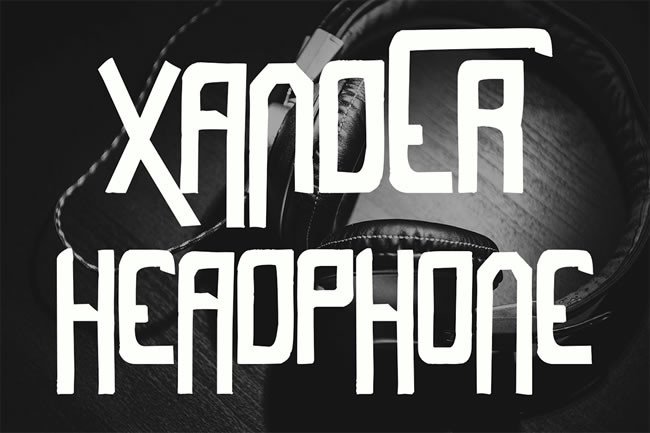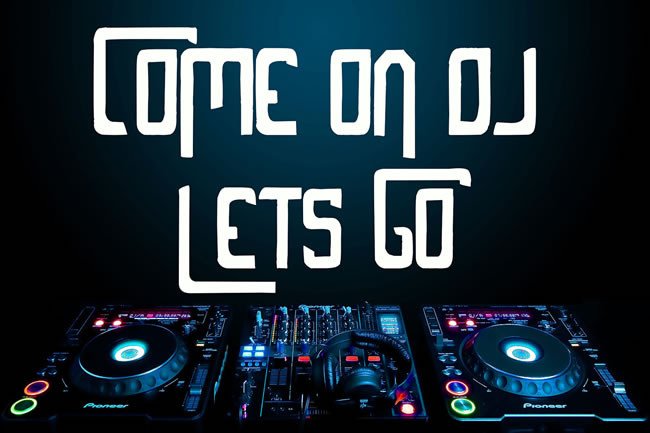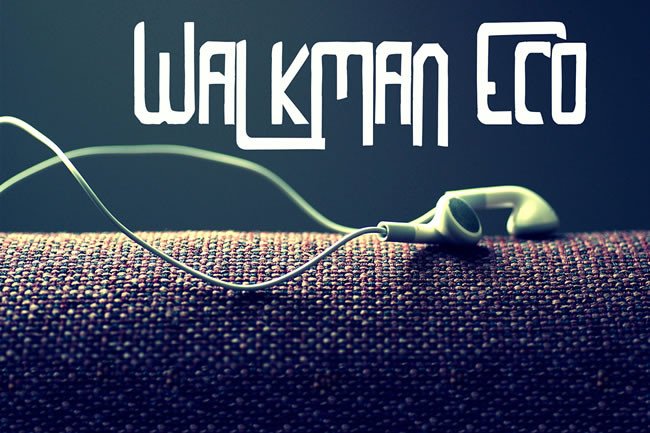
Introduction to As You Know Font
As you know is a handmade display font which can be used for various purposes such as headings, signatures, logos, t-shirts, letterheads, signage’s, posters, badges and anything else you can imagine this typeface with.
| 👤 Author | Only The Originals |
Key Features of As You Know Font
Why Choose As You Know Font?
As You Know Font offers exceptional quality and versatility, making it a valuable addition to your design toolkit. Whether you’re creating for personal projects or commercial use, As You Know Font delivers professional results.